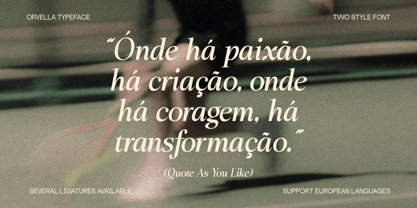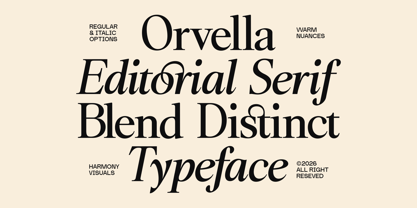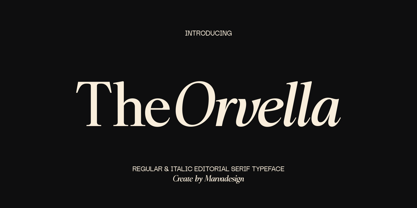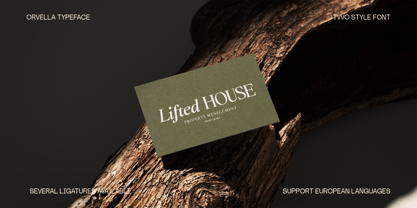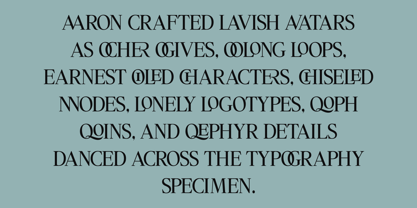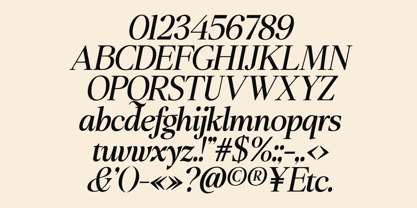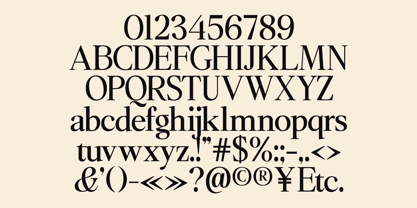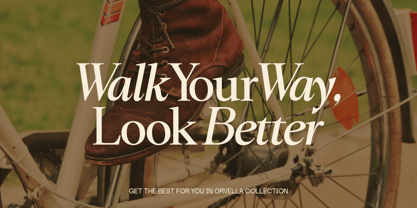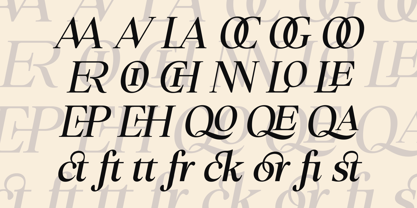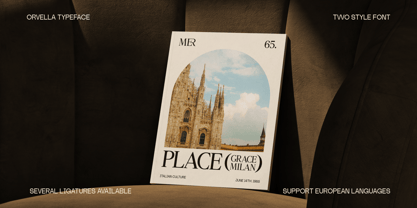
Orvella
von Marvadesign
Die Schriftfamilie Orvella wurde von Febrie Setiawan entworfen und von Marvadesign veröffentlicht. Orvella enthält 2 Stile und Familienpaketoptionen. Mehr über diese Familie
Orvella is a sophisticated editorial serif typeface that blends timeless elegance with contemporary refinement. Designed in Regular and Italic styles, Orvella features graceful, high-contrast strokes, sharp yet refined serifs, and carefully sculpted curves that evoke the luxurious aesthetic of classic fashion magazines and premium branding. Its distinctive character is enhanced by a collection of expressive ligatures, creating subtle visual connections and enhancing the typographic rhythm. The balance between structured shapes and flowing details gives Orvella a refined personality that feels confident and sophisticated.
Inspired by luxury editorials, boutique identities, cultural publications, and high-end packaging, Orvella offers exceptional versatility across a wide range of design applications. The upright style offers clarity and authority, while the italic style conveys movement, elegance, and emotional warmth.
Designer: Febrie Setiawan
Foundry: Marvadesign